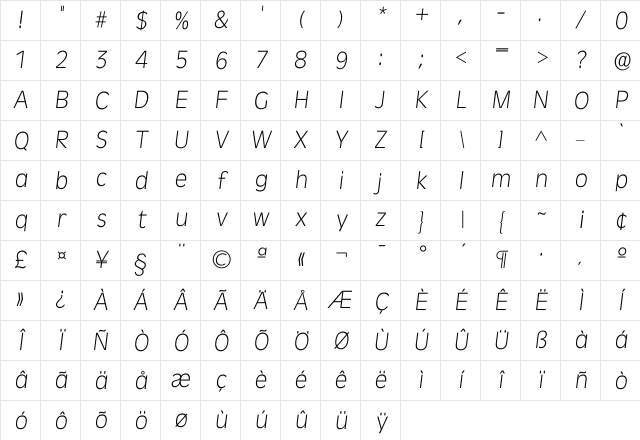
Iravenna Xlight Free Font
Iravenna Xlight
Style: Xlight
Iravenna Family
Iravenna Xlight
Complete Iravenna Xlight glyph index. Displaying only characters natively supported by Iravenna Xlight font.
Design Context for Iravenna
Iravenna is a composed and adaptable typeface that performs quietly and consistently across a wide range of design contexts. Its slender proportions lend an understated elegance to any composition.